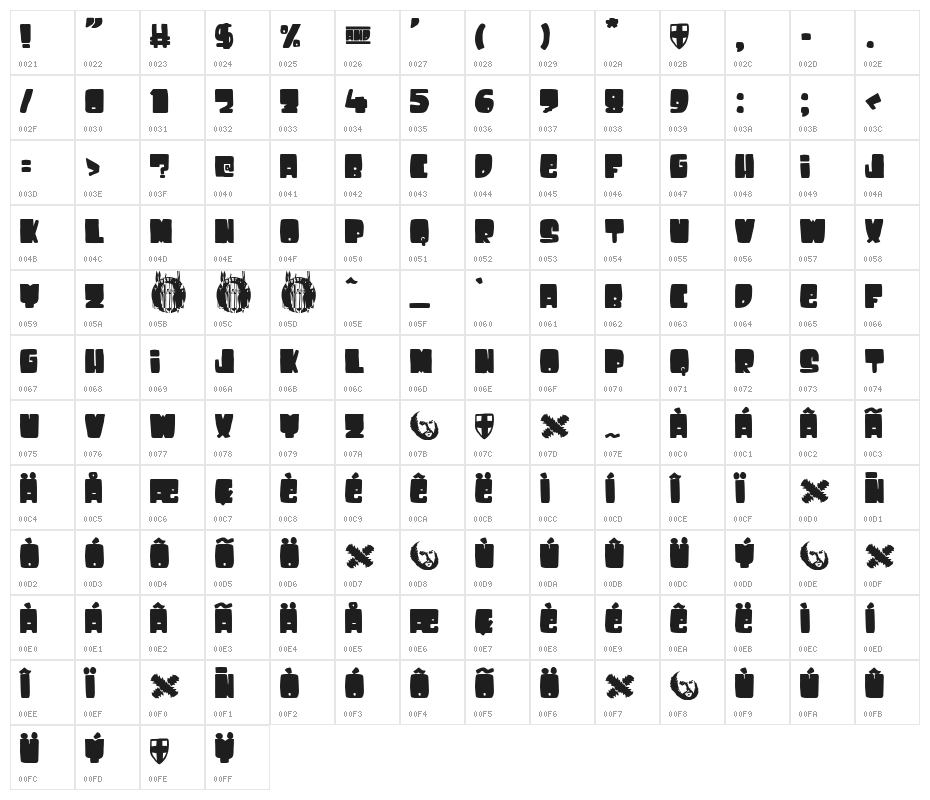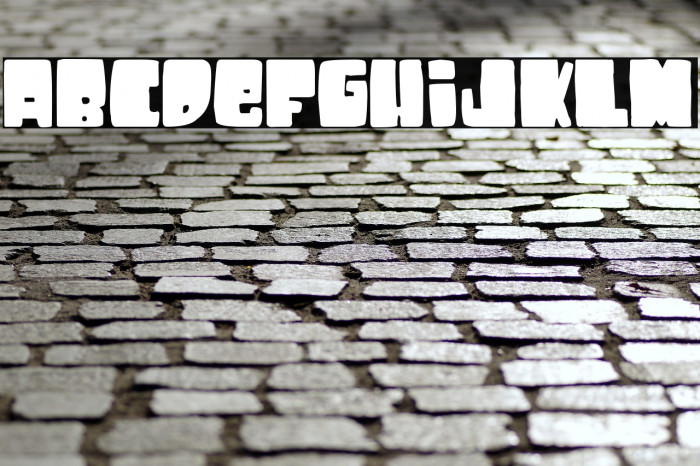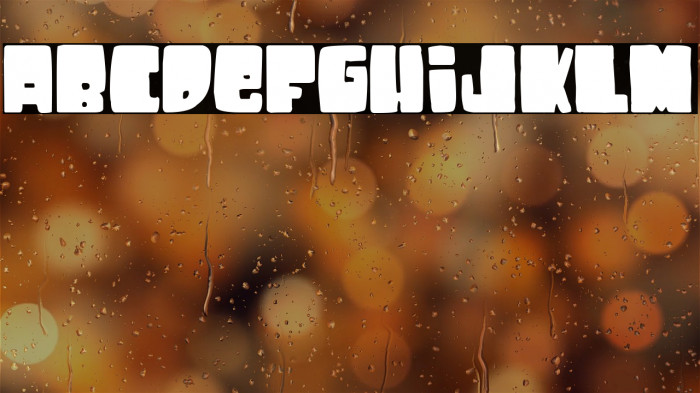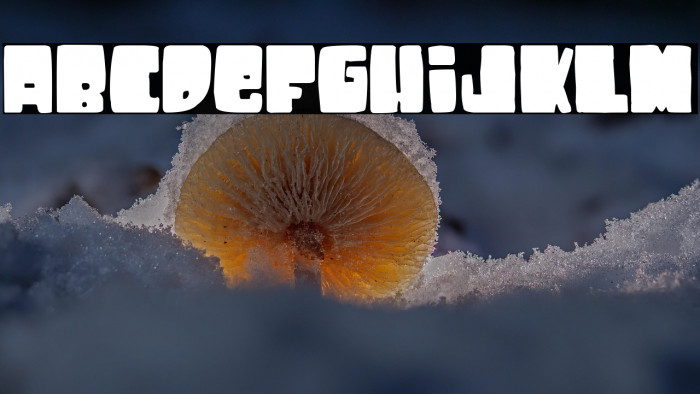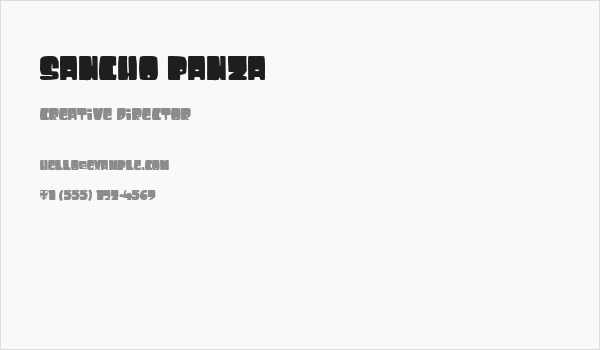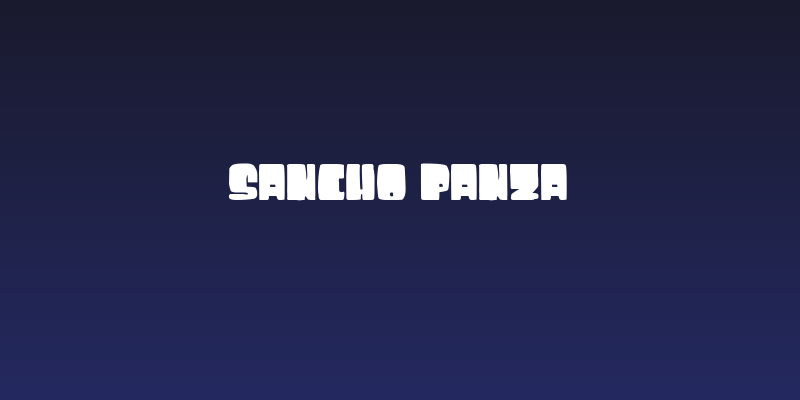
Sancho Panza Font
Sancho Panza Description
This font features a bold and playful design with a chunky, rounded appearance. The characters are heavily weighted, giving them a strong presence on the page. Each letter has a unique, slightly irregular shape, adding a whimsical and informal touch. The font's thick strokes and minimal contrast make it highly legible, even at smaller sizes. Its playful nature is further emphasized by the exaggerated curves and angles, making it ideal for creative and fun projects. The numbers and special characters maintain the same bold and quirky style, ensuring consistency across all text elements.
| Proposed Projects | Ideal for children's books, playful branding, posters, and creative event invitations. |